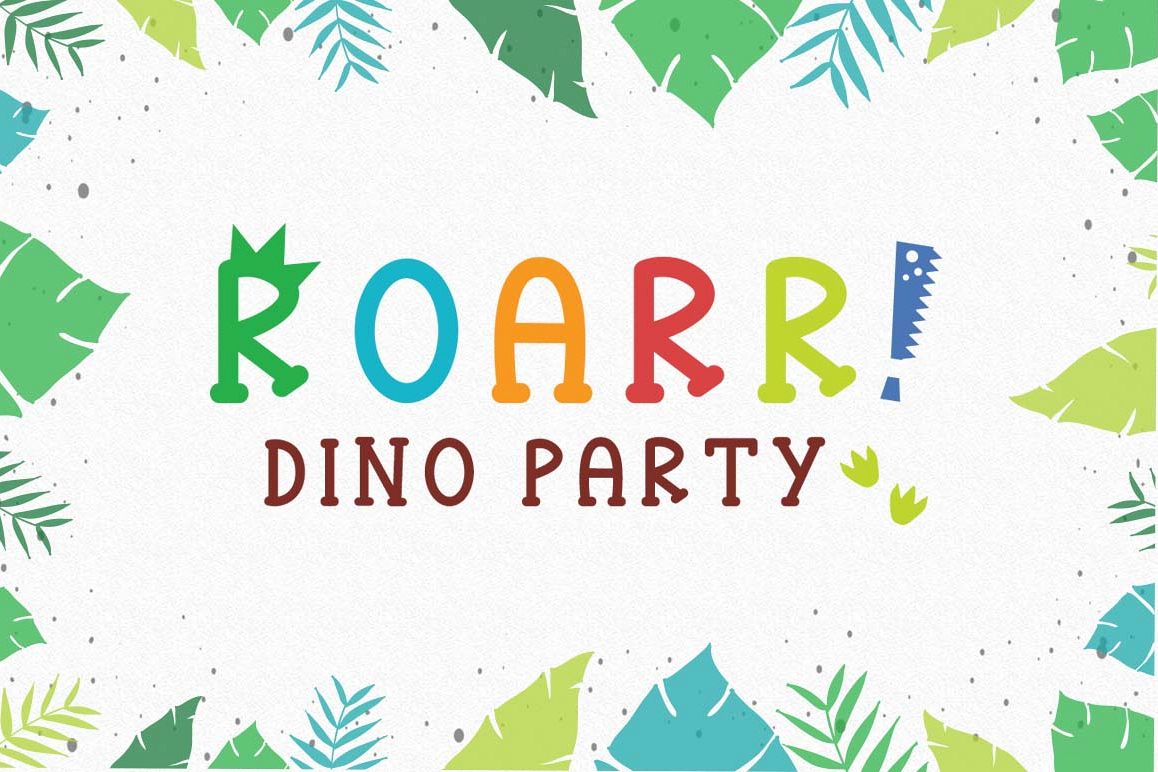
The source Roarr! dino party is a fun font with a uppercase version with dinosaur spikes with auctions and some thematic symbols to help you complement. Perfect for invitations, themed party decorations and customize monograms!